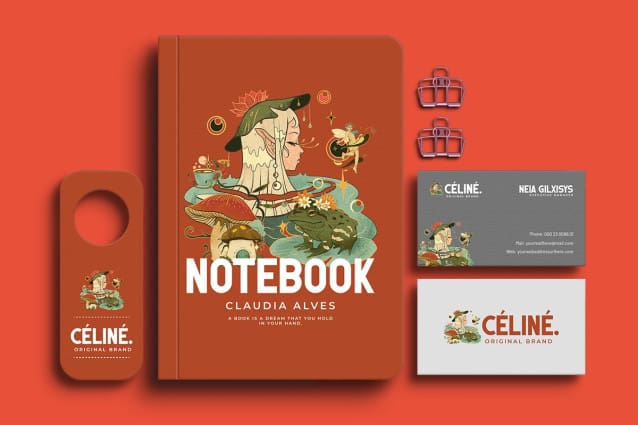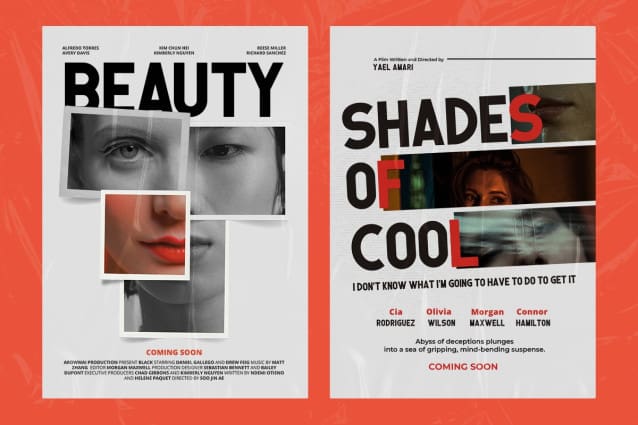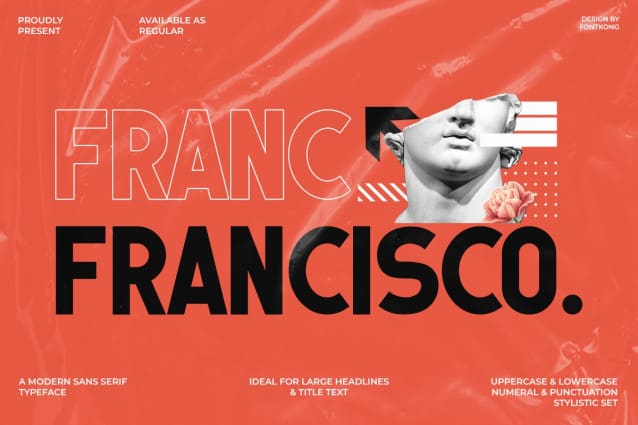
Francisco Font
Francisco Font – Modern Classy Sans Serif Font is a new creation that comes with an elegant and simple style with a thick modern font feel. This font is one of those fonts that give you options for people interested in using a sans serif font. Francisco Font – Modern Classy Sans Serif Font has a distinctive feature, without additional letters in it. It is an easy-to-read font that makes it easy to distinguish individual letters. This font is visible when printed in small or large font sizes.
Francisco Font – Modern Classy Sans Serif Font is the best font for many things. This font can be part of a branding product. Francisco Font – Modern Classy Sans Serif Font will look simple and elegant when combined with several things like clothing, posters, and banners. Francisco Font – Modern Classy Sans Serif Font can be used for magazine covers and online magazines.
Francisco Font – Modern Classy Sans Serif Font is a subclass of sans serif fonts that are used for greeting cards and screen printing. These types of fonts can be digital fonts and print fonts.